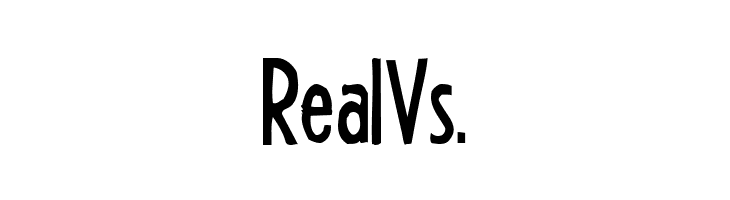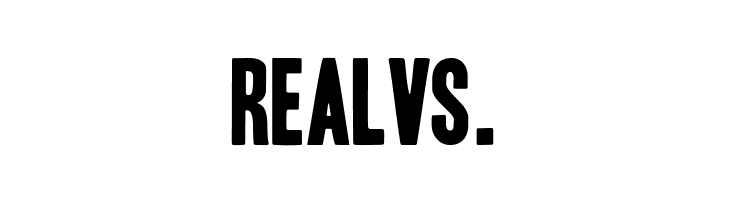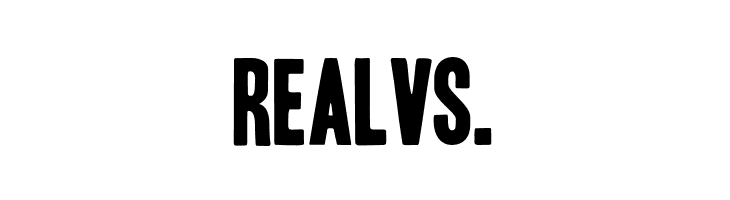
A bold, italicized 3D font with a modern, angular design.
A bold, geometric 3D font with a modern and dynamic style.
A bold, italic, and dynamic font with a modern, edgy style.
A bold, outlined font with a geometric, three-dimensional style.
A bold, condensed font with a strong, geometric style.
A bold, condensed, and italic font with a dynamic and modern style.
A bold, Gothic-inspired font with sharp angles and dramatic presence.
A bold, expanded italic font with a modern and dynamic style.
A bold, extra-expanded decorative font with angular, geometric shapes.
A bold, extra-expanded italic font with a modern, dynamic style.
A bold, italic font with sharp angles and high contrast, perfect for dynamic designs.
A bold, left-slanted font with a dynamic and energetic style.
A bold, geometric font with tall, narrow characters and sharp angles.
A bold, slanted font with a dynamic and modern geometric style.
Bold, italicized font with a shadow effect and dynamic style.
A bold, geometric font with a shadow effect for a modern, 3D look.
Portrait-based dingbat font with stylized black-and-white faces.
Portrait-based decorative dingbat font with high-contrast illustrations.
An elegant and flowing script font with interconnected letterforms.
A decorative and abstract font with characters in circular shapes, featuring geometric patterns.
A quirky cartoon-style display font with each character as a caricature.
Playful dingbat font with object-headed stick figures.
A decorative and abstract font with characters in circular shapes, featuring bold and artistic designs.
An abstract, artistic font with characters enclosed in circular shapes, featuring unique geometric and illustrative designs.
A playful, cloud-inspired decorative font with bold, rounded characters.
A bold, impactful typeface with thick, uniform strokes ideal for headlines.
A bold, hand-drawn style font with irregular strokes and a creative flair.
A bold, modern font with thick strokes and a strong presence.
A bold, hand-drawn font with a rustic and organic feel.
Cartoonish, illustrative font made of quirky character drawings.
Hand-drawn, abstract font made of expressive face sketches.
Abstract, face-themed decorative font with geometric shapes.
Playful, abstract stick-figure font with expressive faces.
Whimsical illustrated font featuring diverse character heads and figures.